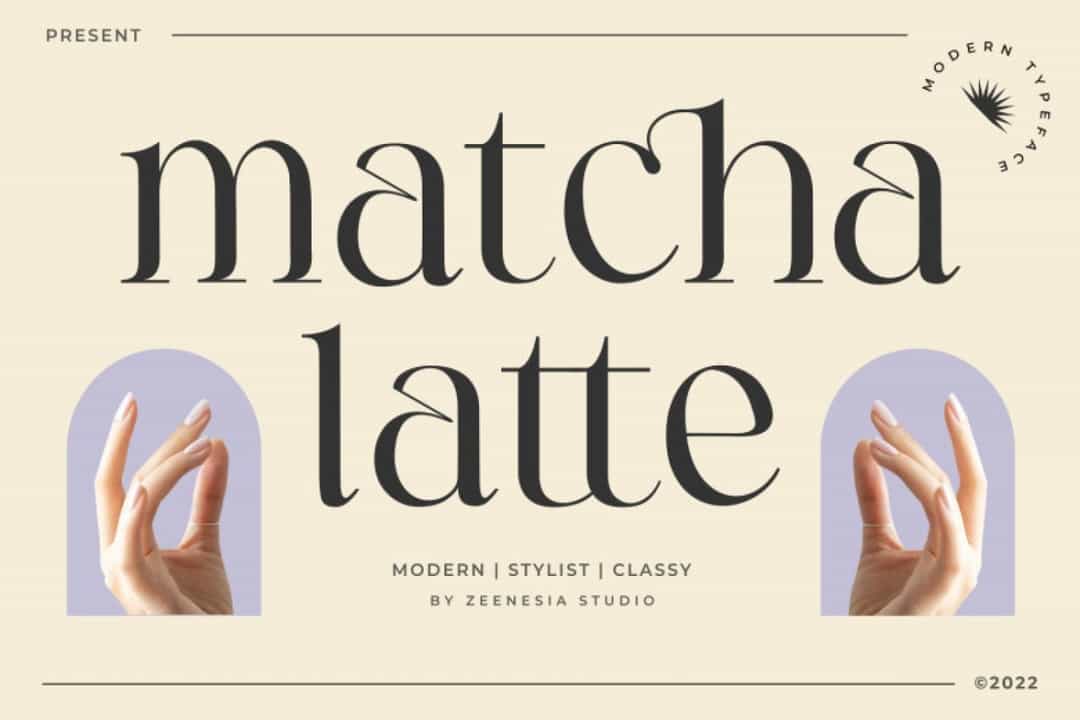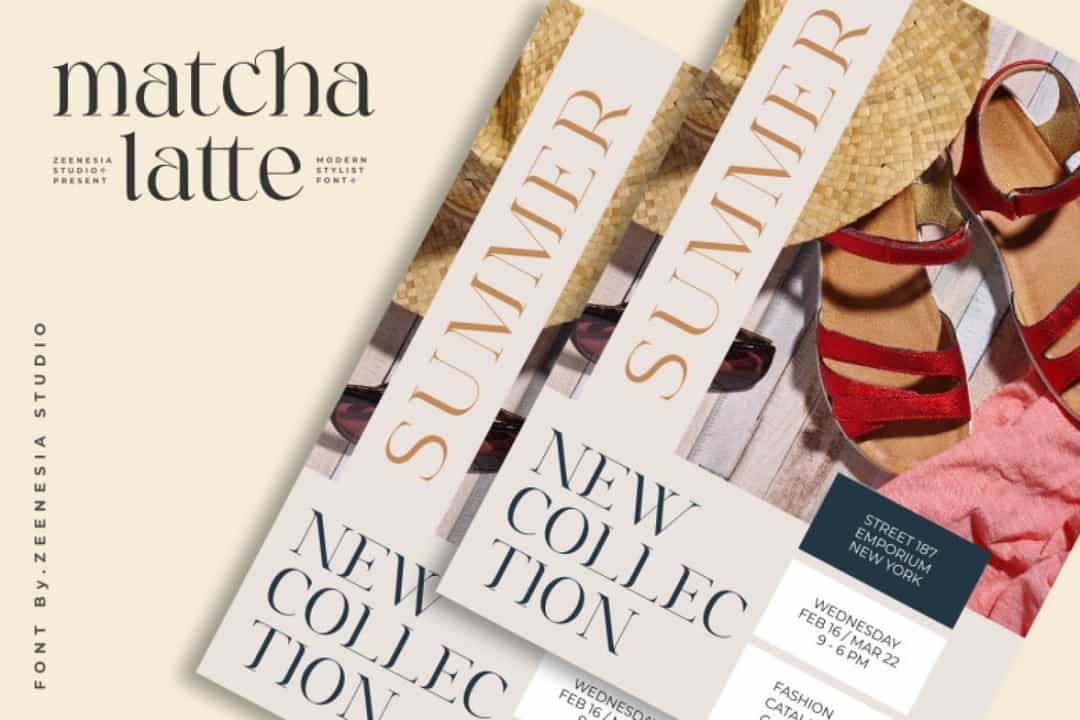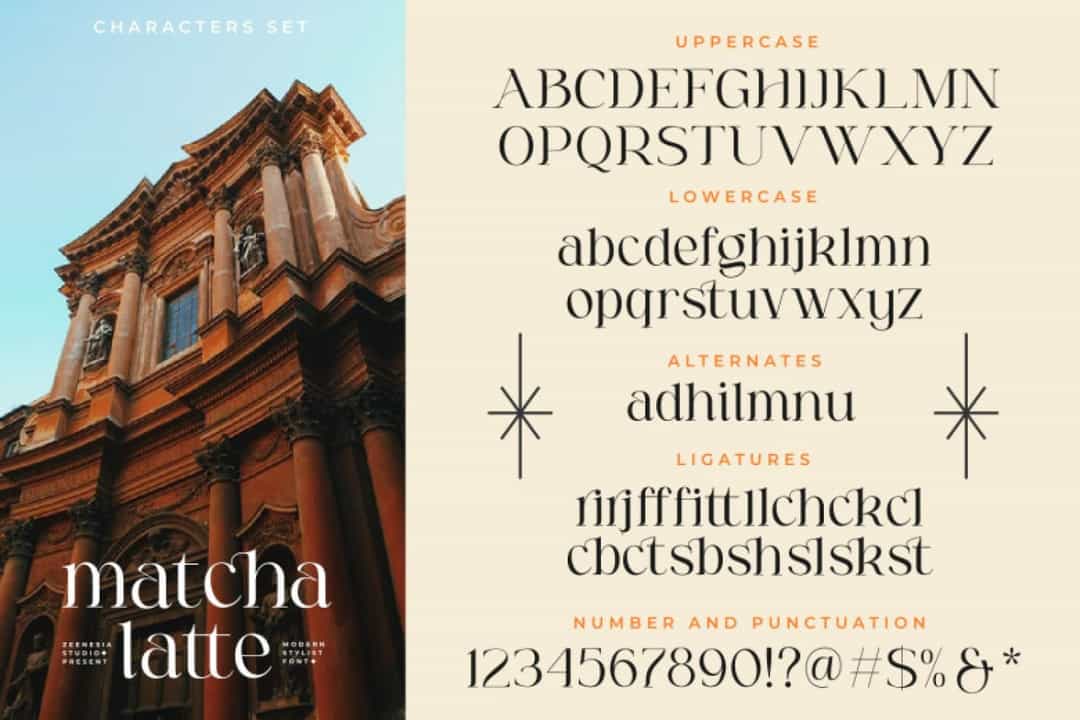
Matcha Latte is an elegant and beautiful Serif font designed with romantic appeal in mind. Created using OpenType features like Style Alternates and Ligatures for enhanced work performance! Your designs will look incredible using this font!